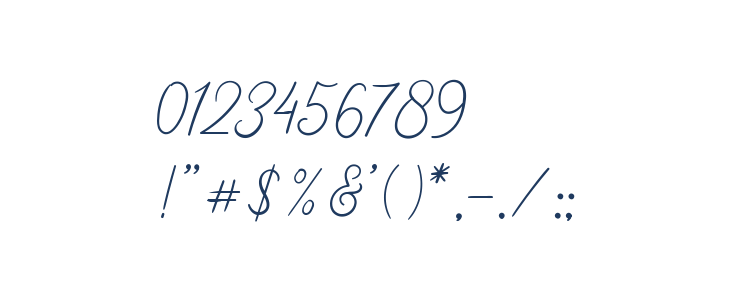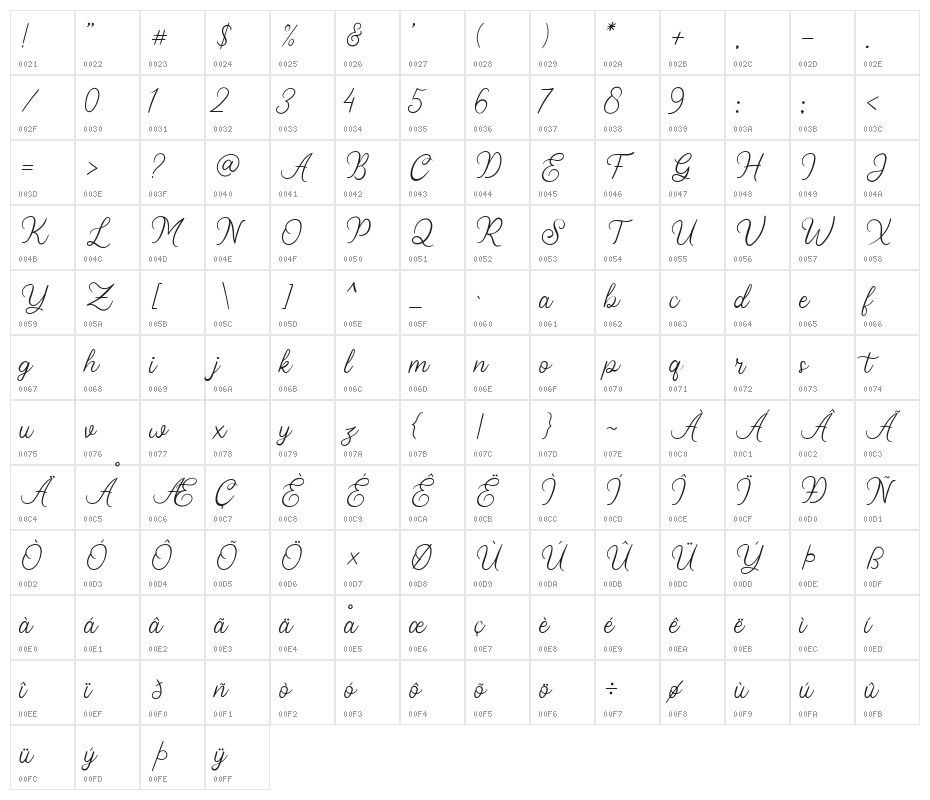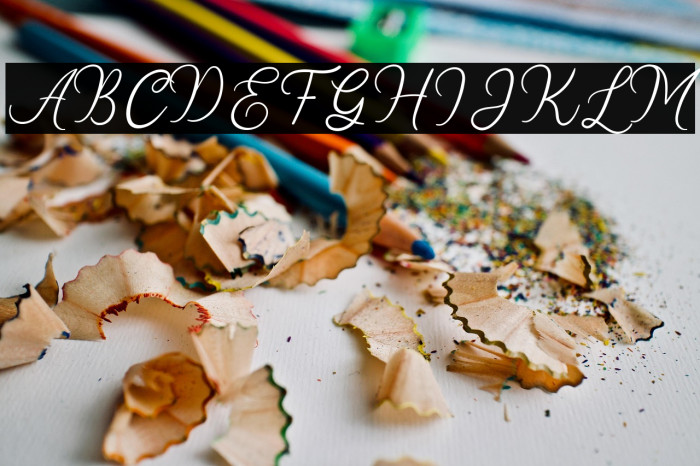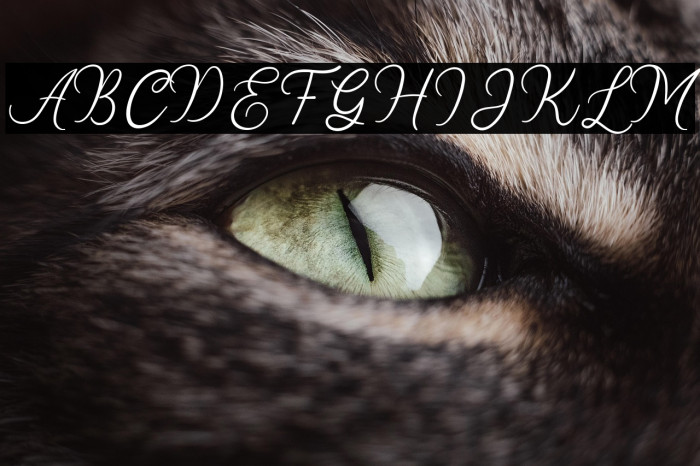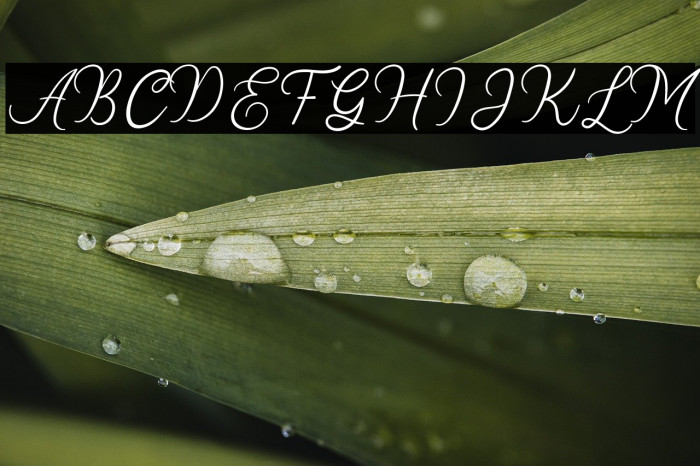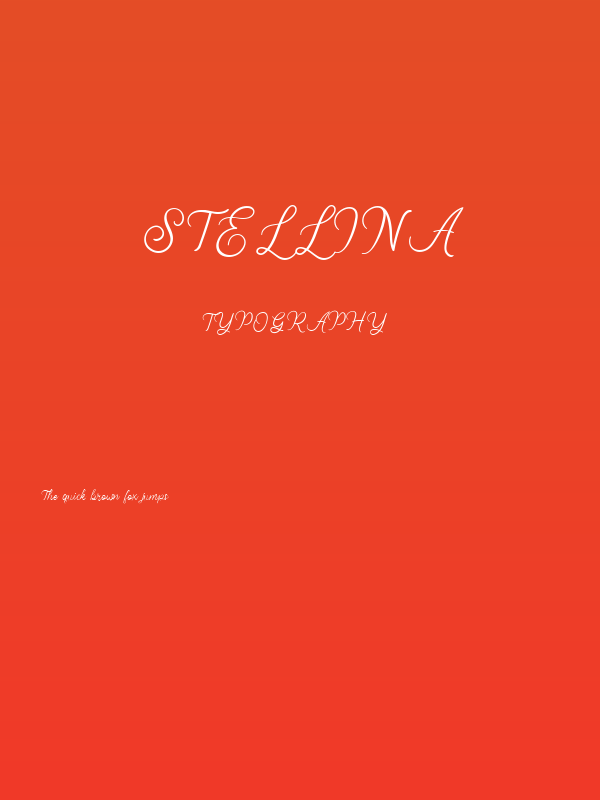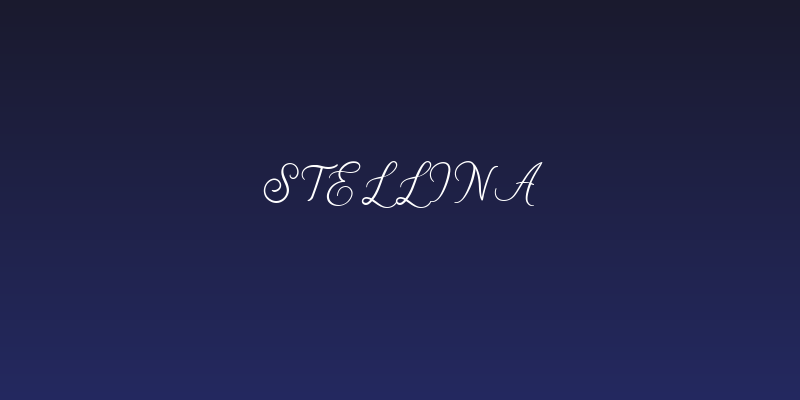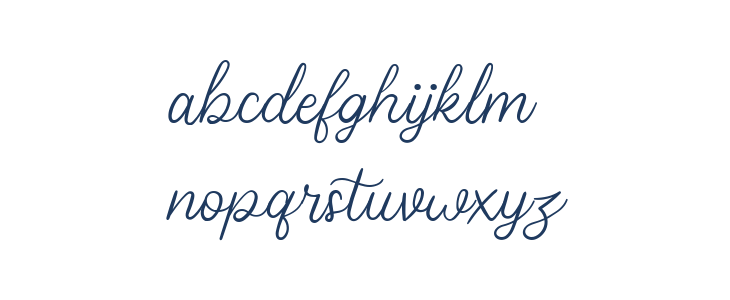
Stellina Font
Stellina Description
This elegant script font features flowing, cursive letters with a refined and sophisticated appearance. The uppercase letters are characterized by their graceful loops and swirls, while the lowercase letters maintain a consistent fluidity that enhances readability. The numerals are designed with a similar flair, ensuring a cohesive look across all characters. Special characters are thoughtfully integrated, maintaining the font's overall aesthetic. This font is perfect for projects that require a touch of elegance and class, such as wedding invitations, formal event programs, or high-end branding materials.
| Use Case | Headlines, Invitations, Branding |
| Proposed Projects | Ideal for wedding invitations, formal event programs, luxury branding, and elegant stationery. |